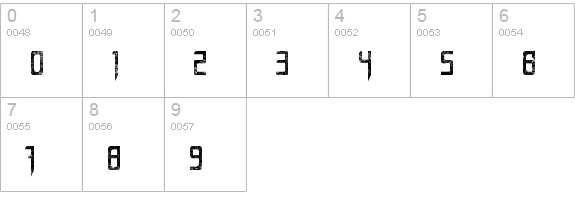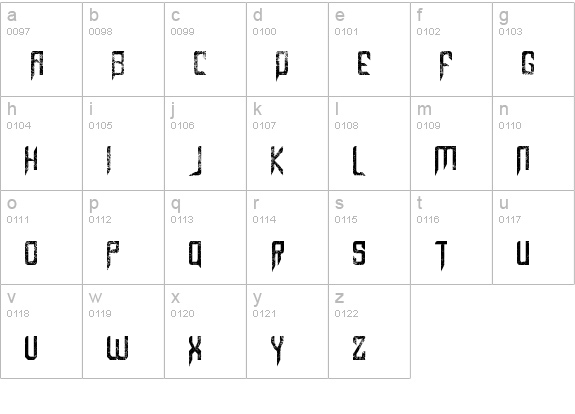
Capella (Rock) III Bold is a strong, high-contrast variant in the Capella typeface family \xE2\x80\x94 well suited to headlines, attention-grabbing titles, and strong calls-to-action.
Introducing Capella (Rock) III Bold font, a captivating and dynamic typeface that exudes power and strength. This font is designed for those who seek to make a bold statement with their typography, whether it be in print or on the web. With its striking angular shapes and confident lines, Capella (Rock) III Bold commands attention and demands to be noticed. It is perfect for headlines, logos, posters, and any design project that requires a touch of rebelliousness and edginess. One of the best things about Capella (Rock) III Bold font is that it is free. Yes, you read that right! This incredible font is freely available to download at FontsMarket.com. Now you can add a touch of rock and roll to your designs without breaking the bank. Not only does Capella (Rock) III Bold font offer an impressive aesthetic, but it also provides excellent legibility and readability. Its bold and sturdy strokes ensure that your message will be conveyed with clarity and impact. Whether you are a designer, a marketer, or simply someone who appreciates the power of typography, Capella (Rock) III Bold font is a must-have in your font collection. It allows you to unleash your creativity and create designs that stand out from the crowd. So why wait? Head over to FontsMarket.com and download Capella (Rock) III Bold font for free today. Don't miss out on this incredible opportunity to enhance your designs with a font that combines strength, style, and a touch of rebelliousness. Embrace the power of Capella (Rock) III Bold and let your creativity shine!